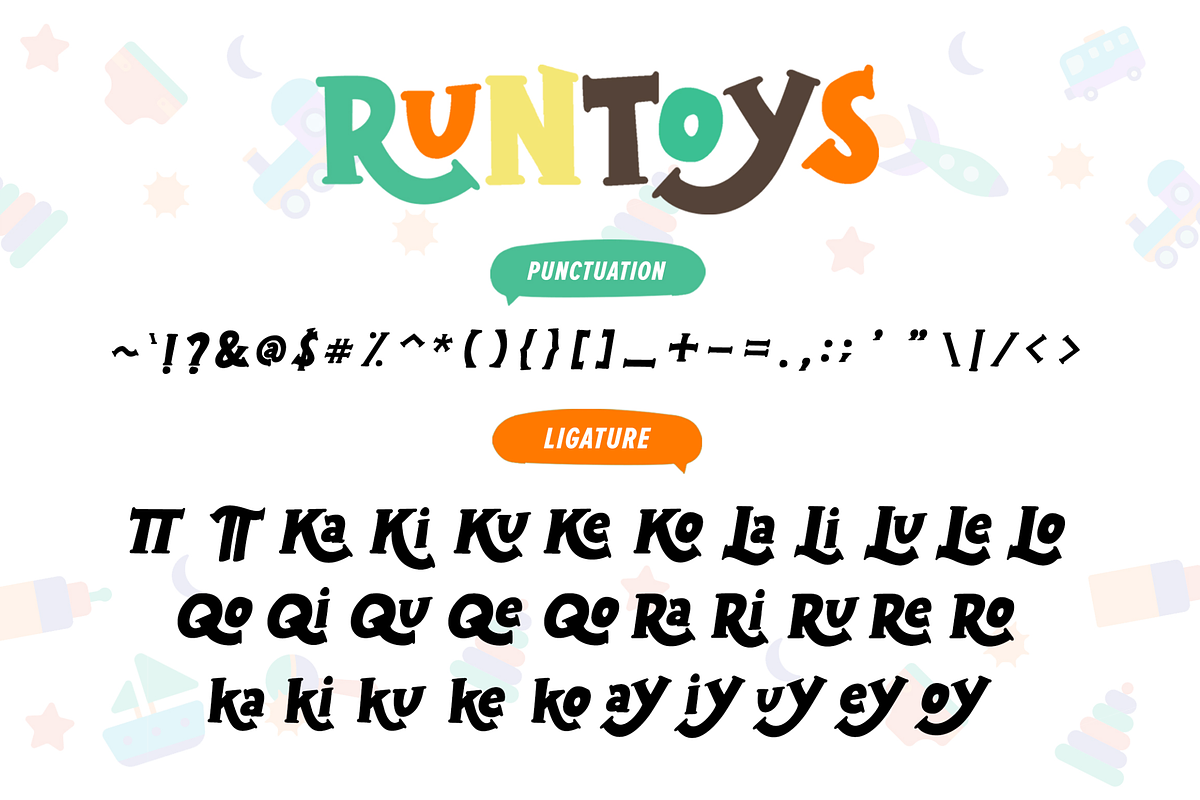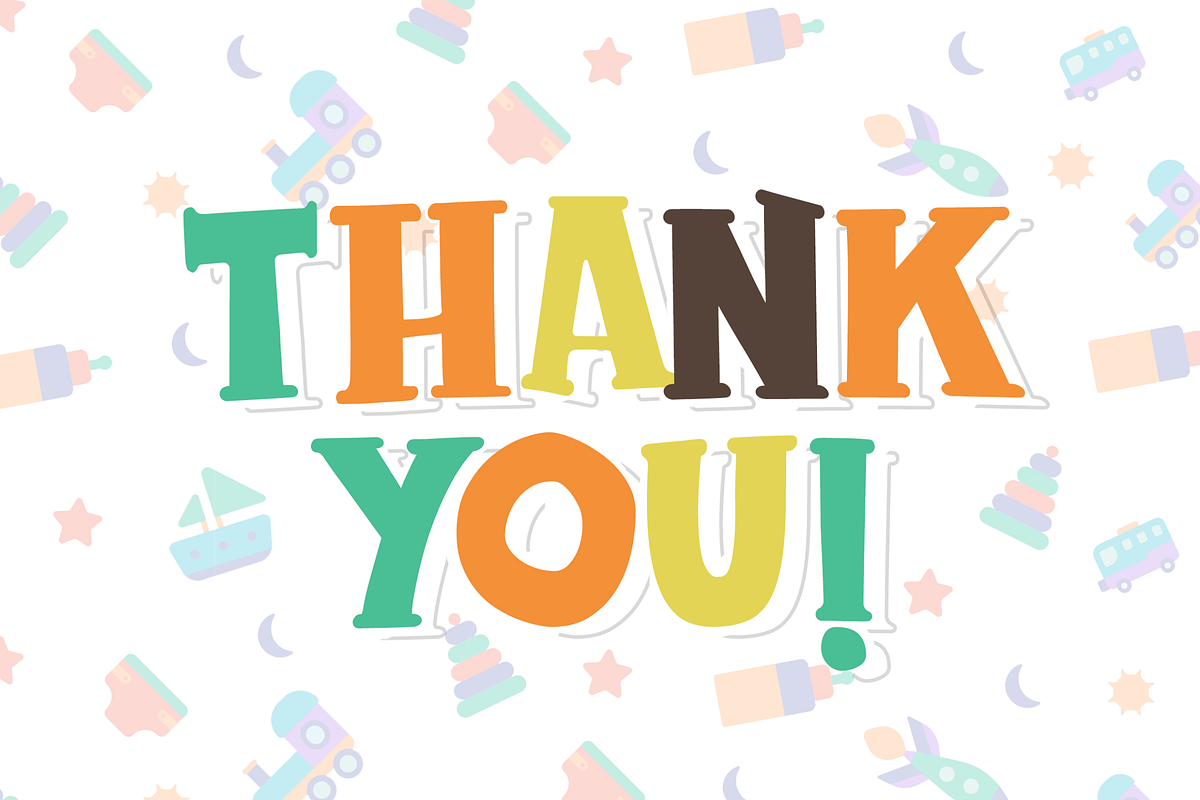
Runtoys
Runtoys is a Fun, Playful and Fancy font. It was created with freehand handwriting style using a marker. It brings joyful and happiness to all your designs.
Runtoys font is great for birthday cards, logos, scrapbooking, posters, quotes, websites, blog, book cover, school projects, mugs, t-shirts, food packaging, and any cute and funny typeface needs and more.
- Runtoys (.ttf + .otf) comes with aesthetic upper and lowercase Standard Characters, a large range of Punctuation, Numerals, and other glyphs variation.
- 32 Ligatures, giving realistic handwritten style and organic looking.
- Includes a large range of Multilingual Characters.